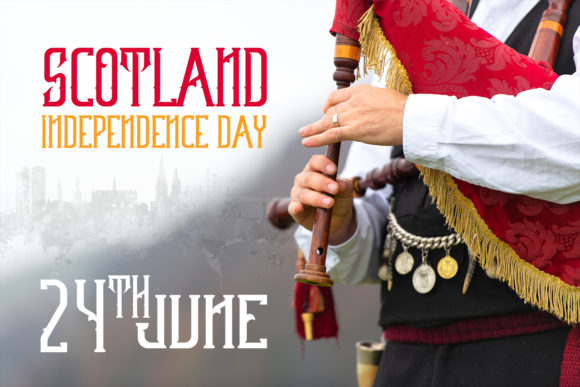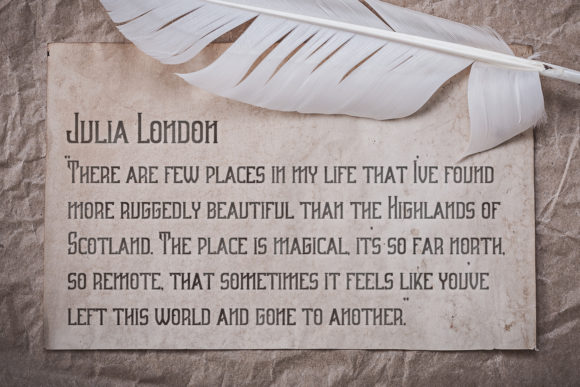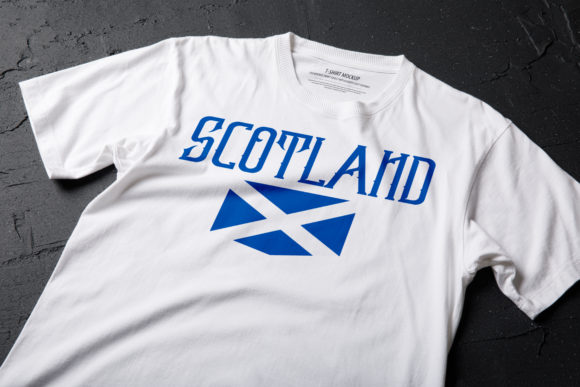
Introduction to Old Scotch Font
Old Scotch is a bold and authentic blackletter font.
Add this font to your favorite creative ideas and notice how it makes them come alive .
Key Features of Old Scotch Font
Why Choose Old Scotch Font?